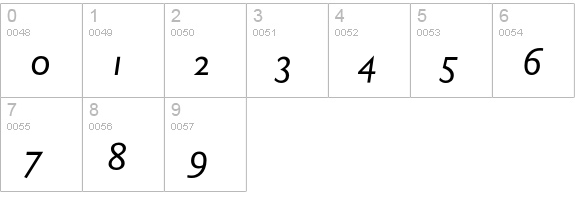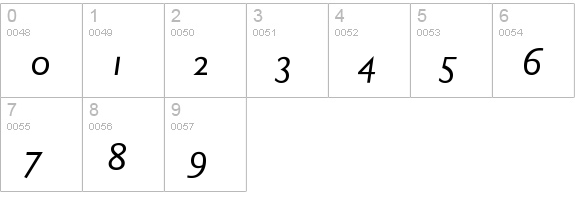
DTLHaarlemmerSansSD-Italic Font Details
DTLHaarlemmerSansSD-Italic is a distinctive, italic variant in the DTLHaarlemmerSansSD typeface family \xE2\x80\x94 well suited to design and typography projects.
The DTLHaarlemmerSansSD-Italic font exudes a sense of modern sophistication with its sleek and elegant design. This italic variant of the font adds a touch of flair and style to any text, making it perfect for use in branding, advertising, or editorial design projects. With its slanted, italicized characters, DTLHaarlemmerSansSD-Italic font brings a dynamic and contemporary look to your text while maintaining readability and clarity. The smooth curves and sharp angles of the letters create a harmonious balance, making this font a versatile choice for a wide range of design applications. Best of all, the DTLHaarlemmerSansSD-Italic font is free to download at FontsMarket.com, making it accessible to designers, creatives, and enthusiasts alike. Whether you're working on a personal project or a professional assignment, this font is sure to elevate your designs and leave a lasting impression on your audience. Download DTLHaarlemmerSansSD-Italic today and unleash your creativity with this stunning typeface!